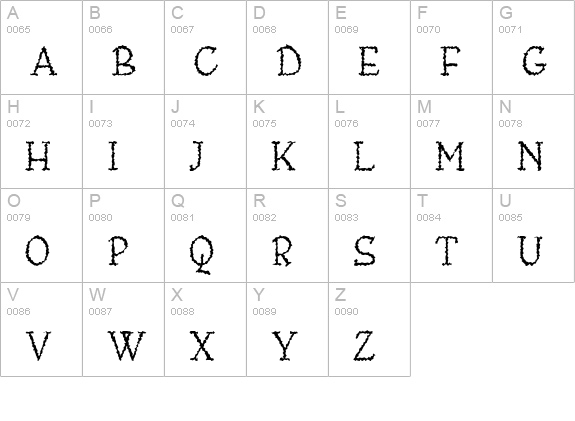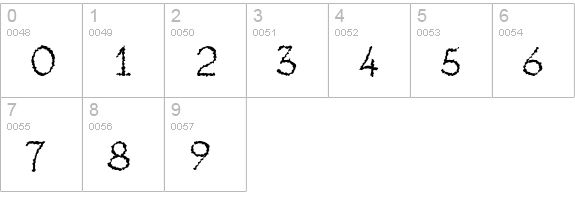
AnarckhieRagged Font Details
AnarckhieRagged font is a unique and edgy typeface that exudes a rebellious and anarchic vibe. Its jagged edges and rough texture give it a raw and gritty appearance, making it perfect for projects that require a bold and unconventional look. The irregular shapes and distressed details add a sense of chaos and unpredictability to any design, setting it apart from more traditional fonts. AnarckhieRagged font is freely available to download at FontsMarket.com, making it accessible to designers and creatives looking to add a touch of rebellion to their work. Whether used for posters, album covers, branding, or any other creative project, this font is sure to make a statement and leave a lasting impression. Embrace the unconventional and unleash your creativity with AnarckhieRagged font.